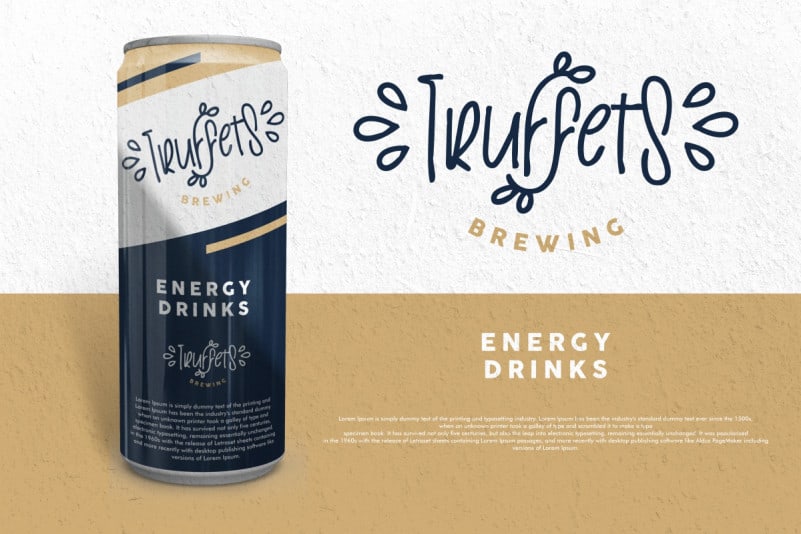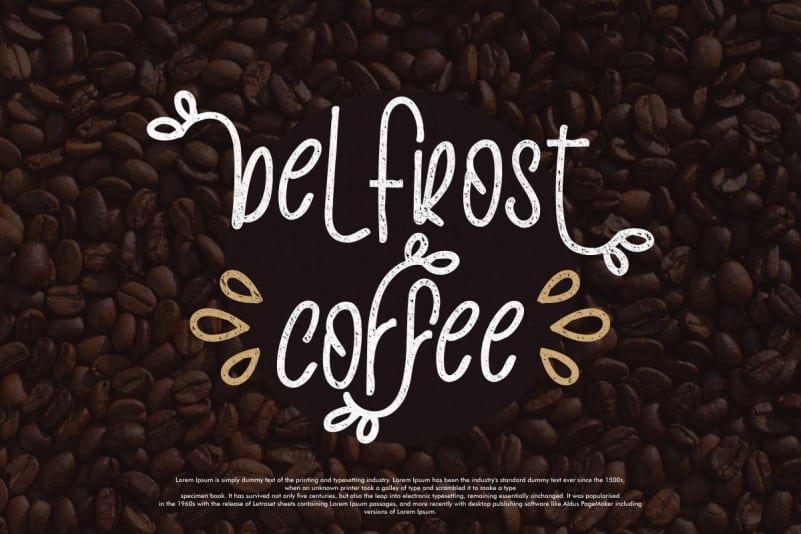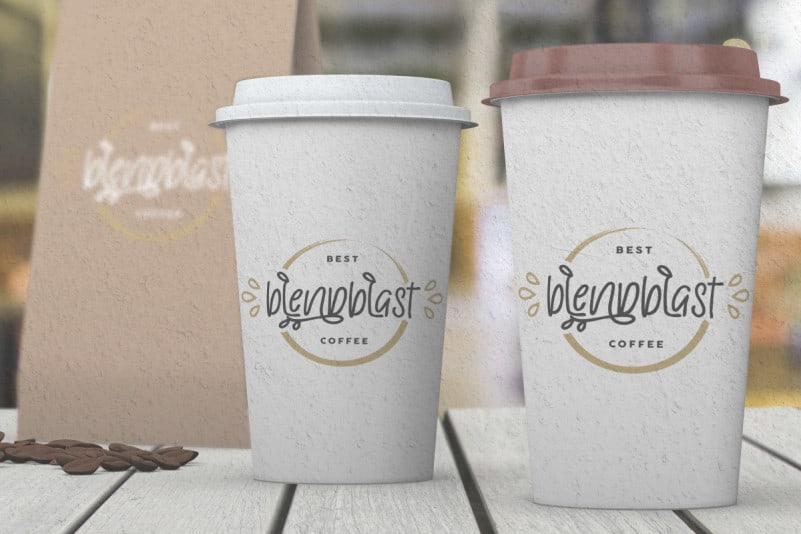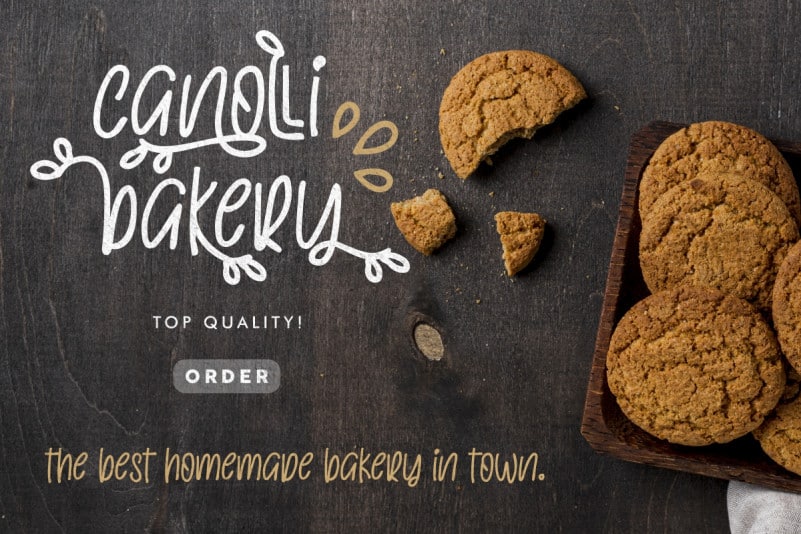
Leaffuse Display Font
Leaffuse Display Font is a sans serif display font with a unique ornamental style. This font is crafted carefully in every its single scratch, created to look as close to a natural handwritten script so that it can create the perfect combination on each glyph. The ornament style of this font is inspired from leaf, tree and other nature elements.
Leaffuse Display Font includes full set of Uppercase and Lowercase Basic Characters, Numerals and Punctuation. Also it contains ligatures and a lot of stylistic alternates characters to perfectly make unique unusual look that add more beautiful and aesthetic fonts to perfect your extraordinary project. This font is perfect for modern projects, headings, logos, branding design, signatures, quotes, fashion apparel, business card, stationery, invitations and more!